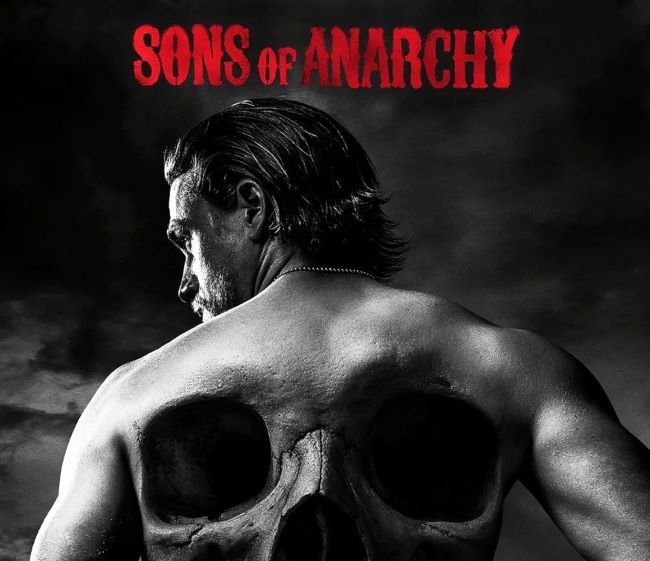
Sons of Anarchy font — Carnivalee Freakshow, designed by Christopher Hansen — is the typography of a carnival that has permanently relocated to an outlaw motorcycle club compound in Charming, California: a distressed, vintage-grotesque display face with the rough, stamped-and-weathered texture of something that has been on the road for a long time and has the road rash to prove it. The freely available Sons of Anarchy Font brings this distressed, outlaw-vintage energy to creative work.